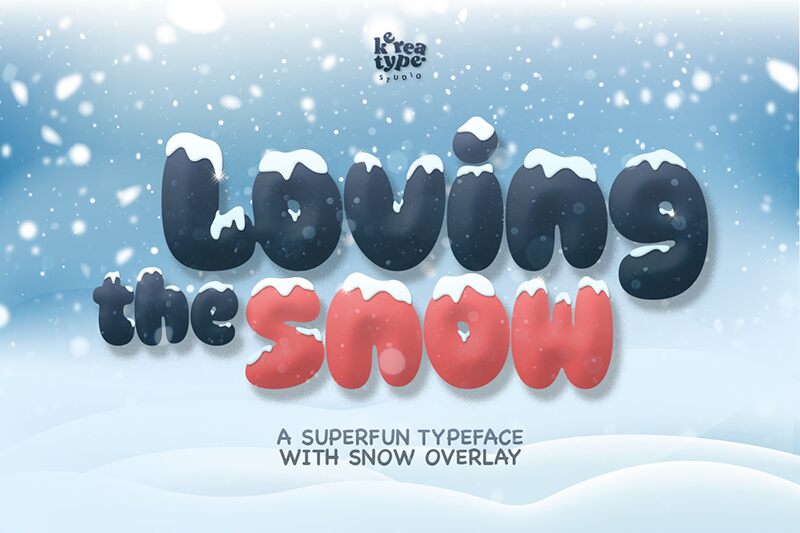
Loving Snow font by Kereatype Studio is a playful cartoon display font with a friendly feel. The bold rounded strokes and cheerful design ensure this typeface stands out even in big projects. Its casual style is further modernized with ease of readability, making it readers’ favorite.
Use Loving Snow in t-shirt designs, logo letters, branding designs, product packaging, greeting cards, covers and titles and posters. Its fun outlook also suits menus for little children along with invitation cards or event tickets for baby showers and kids’ parties.